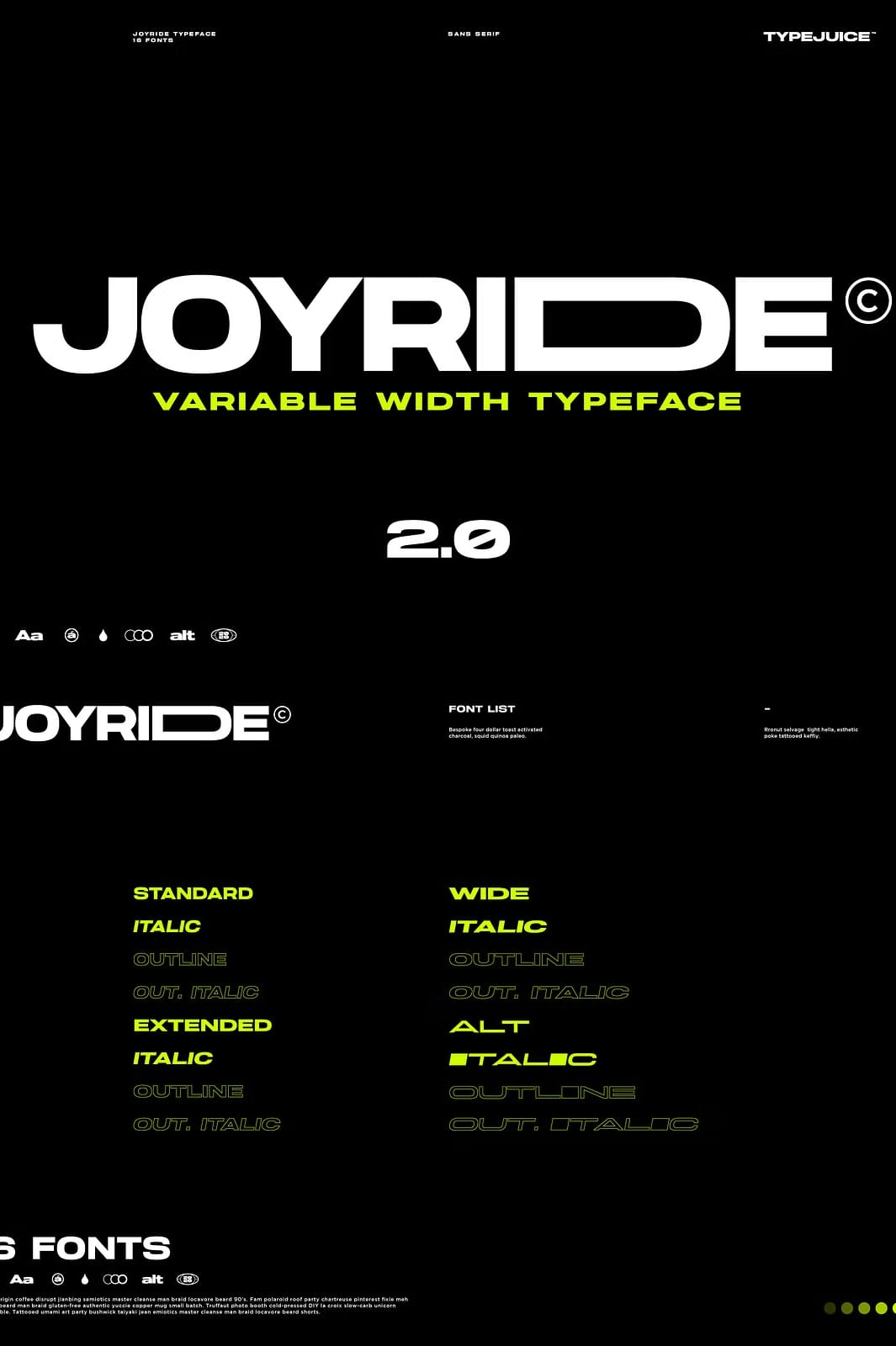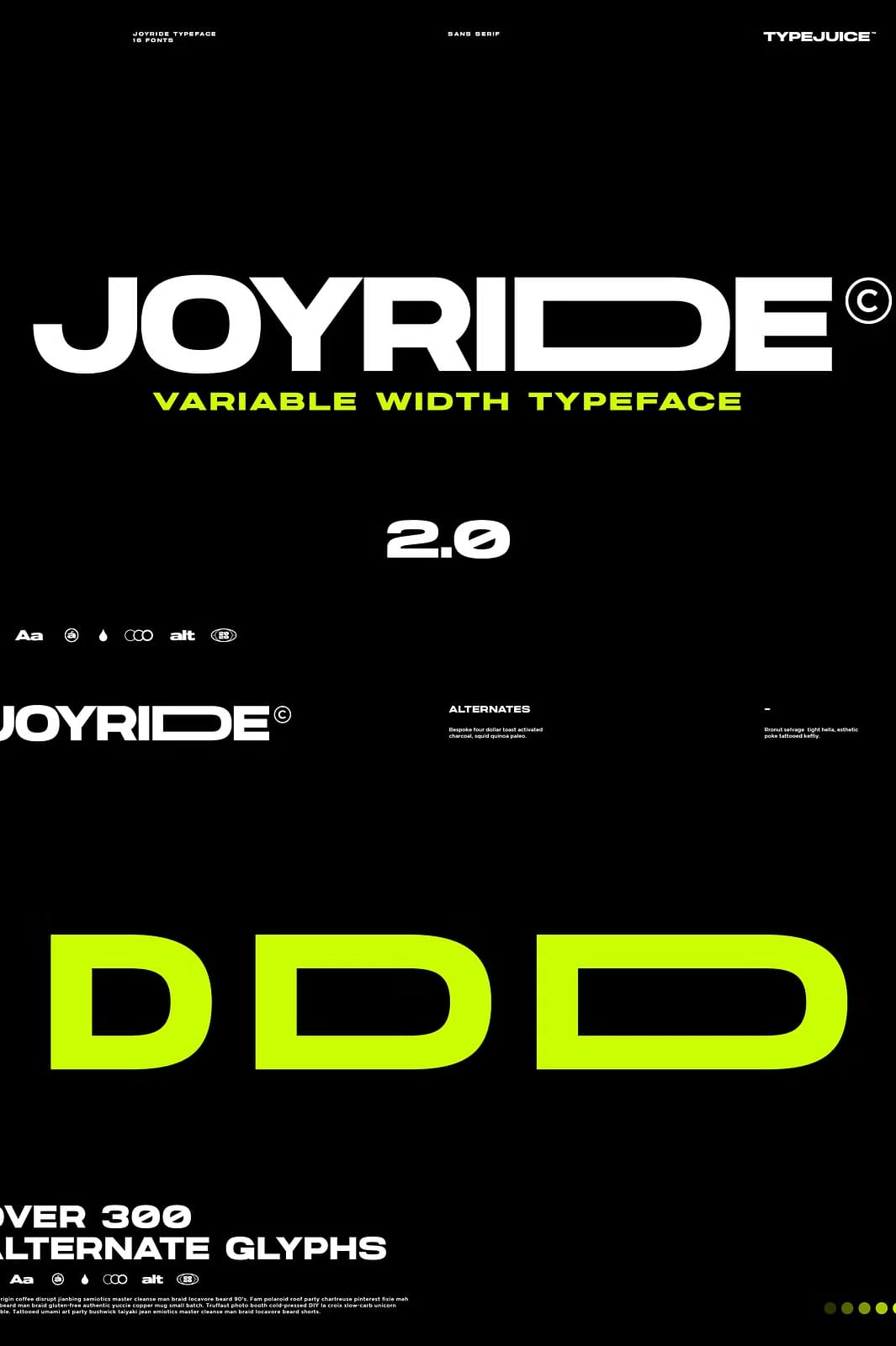
Joyride is a dynamic, extended variable width sans serif typeface family designed for creative professionals seeking unparalleled customization and flexibility. This robust collection offers 16 expertly crafted fonts across a wide range of weights and styles, providing designers with a versatile toolkit that adapts seamlessly across branding, editorial, and digital projects. Its extended variable widths and over 300 alternate glyphs empower users to tailor typography with precision, unleashing boundless creative potential in any design environment.
Extensive Font Family with Versatile Styles and Weights
The Joyride typeface family comprises 16 distinct fonts categorized into 4 primary font styles. This variety allows for precise typographic expression, from subtle, lightweight text to bold, attention-commanding headlines. Each weight and style is meticulously balanced to maintain harmony and readability, enabling designers to establish clear visual hierarchies or bold, experimental layouts with confidence. This variety makes Joyride perfect for multi-format projects including websites, print materials, advertising campaigns, and multimedia assets.
Enhanced Creative Control with Over 300 Alternate Glyphs
A standout feature of Joyride is its extensive set of over 300 alternate glyphs with variable widths. These alternates provide designers with numerous options to customize letterforms, adjust spacing, and achieve unique typographic expressions. This comprehensive glyph set supports multilingual communication and includes accented characters, punctuation, and special symbols, ensuring broad language coverage and professional, polished results across diverse global projects.
Multilingual Support and Professional OpenType Features
Joyride is built with global communication in mind, featuring extended multilingual glyph support across its 16 fonts. The OpenType format enables enhanced typographic control with features such as precise kerning, ligatures, stylistic sets, and alternates that elevate the text’s aesthetic and readability. This ensures that Joyride delivers professional-grade typography suitable for international clients, multilingual branding efforts, and multi-platform publishing.
Joyride: Empowering Designers to Create with Freedom and Flair
Joyride sets itself apart as a forward-thinking typeface family that combines geometric precision with expressive versatility. By offering a comprehensive range of variable widths, multiple font weights and styles, plus a massive glyph inventory, Joyride invites designers to push creative boundaries and tailor typography to fit any narrative or brand voice. The typeface’s broad scope and technical sophistication enable users to solve complex design challenges confidently and elegantly.